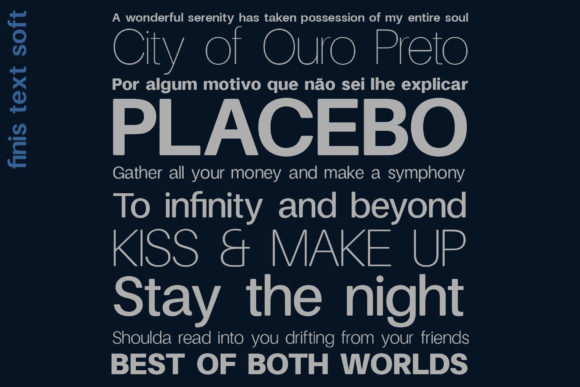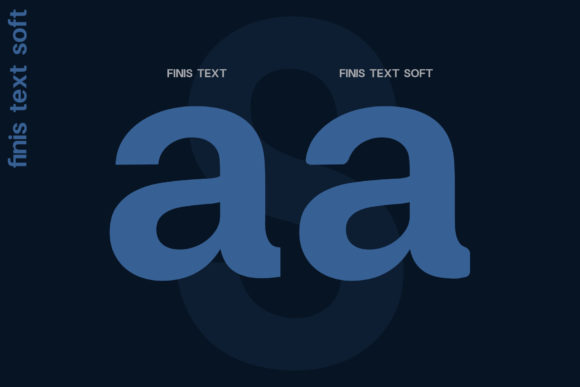
Discover the Elegance of Finis Text Soft Font: A Geometric Sans-Serif Marvel
In the realm of typography, the quest for the perfect font is endless. Designers and crafters are always on the lookout for typefaces that not only capture the essence of their creative vision but also enhance readability and aesthetic appeal. Finis Text Soft font emerges as a beacon of modernity and sophistication, offering a unique blend of geometric precision and soft-edged warmth. Inspired by the iconic Bauhaus movement, this font family is engineered to excel in a variety of applications, from headlines and logos to digital displays and print materials.
The Bauhaus Inspiration
The Bauhaus movement, renowned for its radical approach to design, emphasized functionality, simplicity, and a clean aesthetic. Finis Text Soft font draws from these principles, incorporating geometric shapes and a minimalist approach to create a typeface that is both simple and impactful. The soft edges add a touch of warmth and approachability, distinguishing it from more traditional sans-serif fonts and making it incredibly versatile for various design projects.
Key Features of Finis Text Soft Font
- Geometric and Contemporary Design: The font boasts a geometric, contemporary look with soft edges, providing a fresh take on traditional sans-serif typefaces.
- Clarity and Legibility: Designed with clarity and legibility in mind, Finis Text Soft excels in both headlines and body text, ensuring that your message is conveyed effectively.
- Versatile Design Options: Whether it’s for headlines, logos and branding, displays, invitations, posters, packaging, blog headers, recipe cards, postcards, or more, Finis Text Soft offers the versatility needed to elevate your designs.
- Inspired by Bauhaus: The font’s design roots in the Bauhaus movement provide it with a timeless quality, making it suitable for projects that require a classic yet modern feel.
Applications of Finis Text Soft Font
The adaptability of Finis Text Soft font makes it an invaluable asset for designers and crafters across various mediums. Here are some of the key areas where this font truly shines:
- Headlines and Titles: The font’s geometric design and soft edges make it perfect for grabbing attention in headlines and titles, offering a clear and readable aesthetic even at larger sizes.
- Logos and Branding: For logos and branding, Finis Text Soft provides a modern and approachable look that can help establish a strong brand identity.
- Digital and Print Displays: Its legibility on both digital screens and print materials makes it an excellent choice for displays, posters, and advertisements.
- Invitations and Stationery: The soft-edged sans-serif design lends a touch of elegance and sophistication to invitations, greeting cards, and other stationery items.
- Packaging: For product packaging, Finis Text Soft offers a clean and contemporary look that can help products stand out on crowded shelves.
Why Choose Finis Text Soft Font?
In a sea of typefaces, Finis Text Soft font stands out for its unique combination of geometric precision and soft-edged warmth. Its roots in the Bauhaus movement provide a foundation of timeless design principles, while its contemporary soft edges offer a modern twist. This font is not just about aesthetics; it’s also about functionality. Its clarity and legibility make it suitable for a wide range of applications, from digital interfaces to print materials.
For designers and crafters seeking a typeface that blends the simplicity of geometric design with the warmth of soft edges, Finis Text Soft font is an exceptional choice. Its versatility and legibility across various mediums make it a valuable addition to any design project. Whether you’re working on a branding campaign, designing a website, or crafting print materials, Finis Text Soft font offers the perfect blend of style, functionality, and elegance.
Embrace the elegance and versatility of Finis Text Soft font in your next design project. Experience how this geometric, contemporary, soft-edged sans-serif typeface can elevate your work, making it more engaging, readable, and aesthetically pleasing. With Finis Text Soft, you’re not just choosing a font; you’re choosing a design companion that understands the balance between form and function.